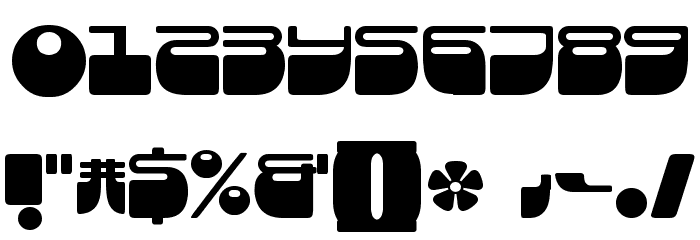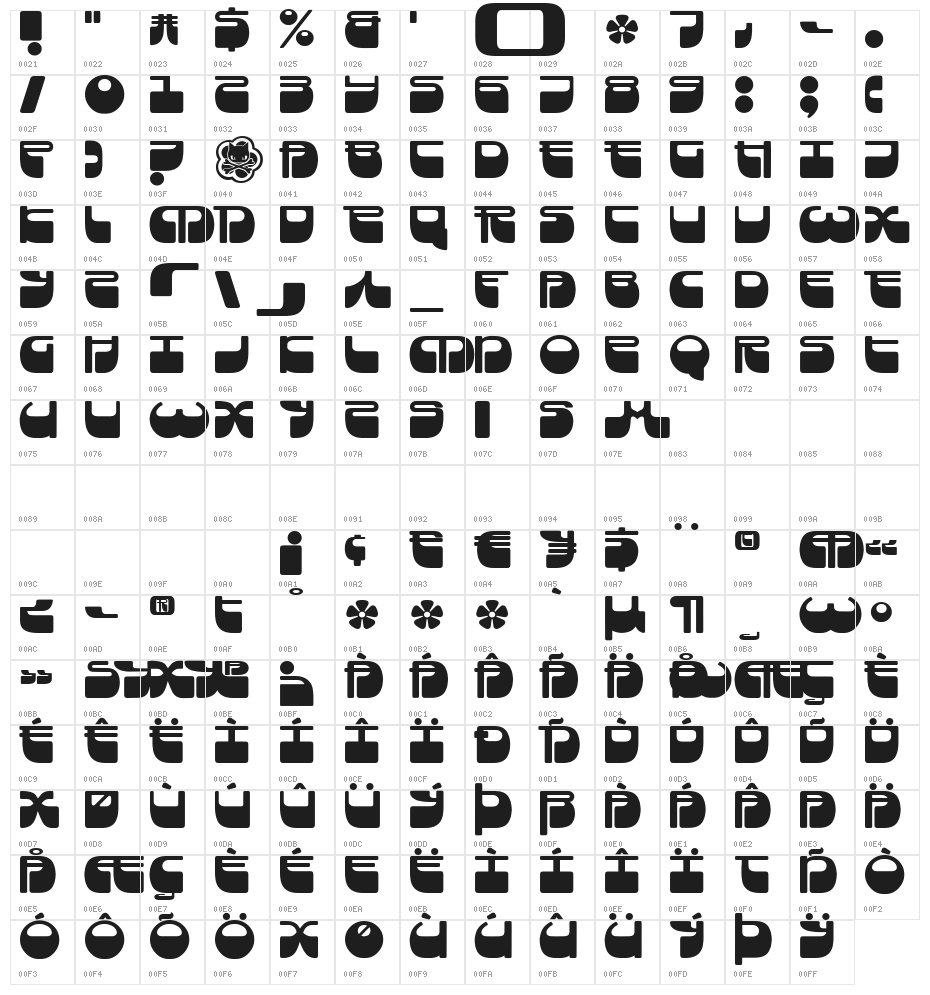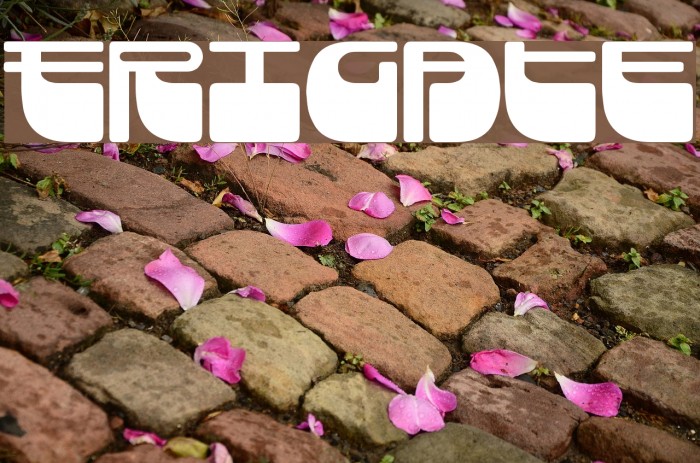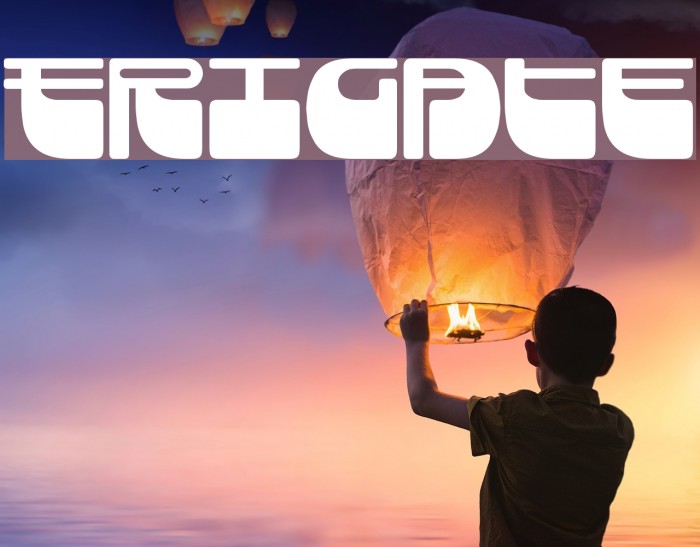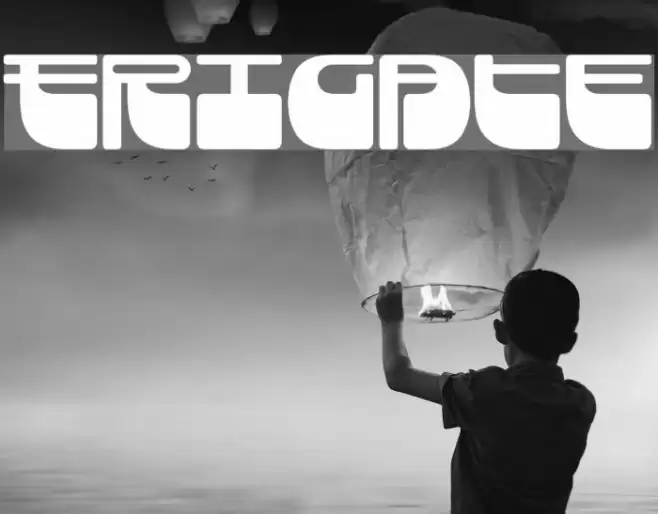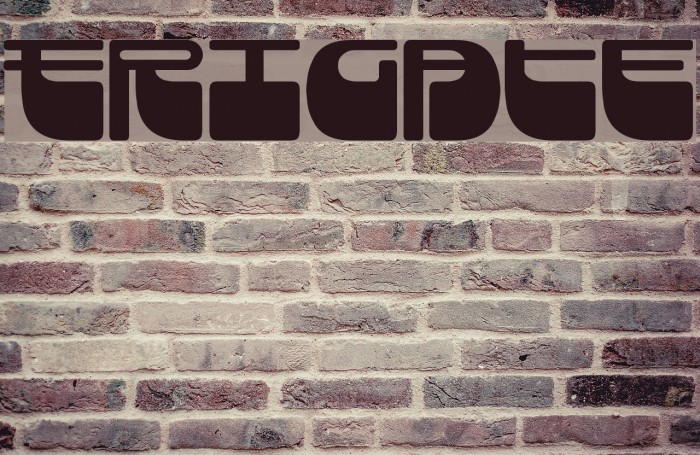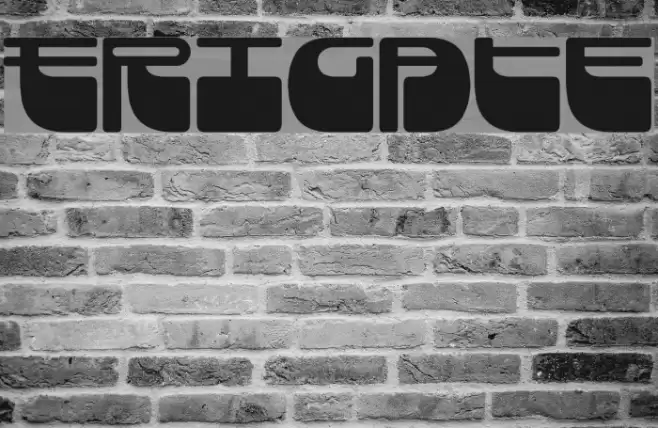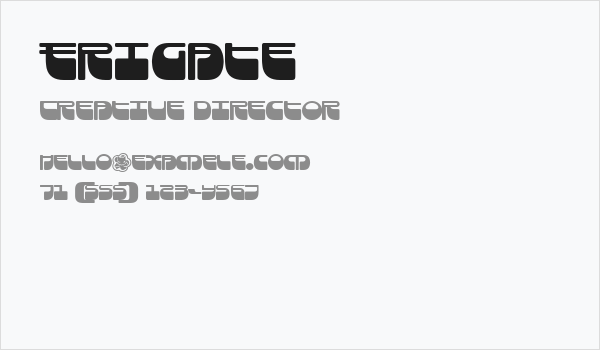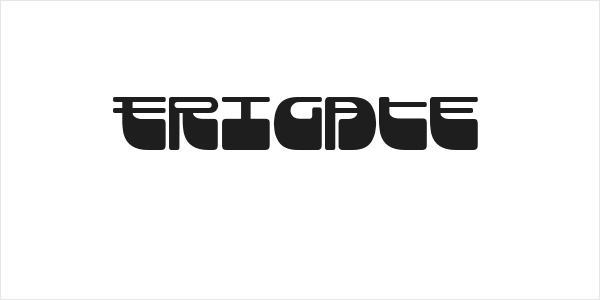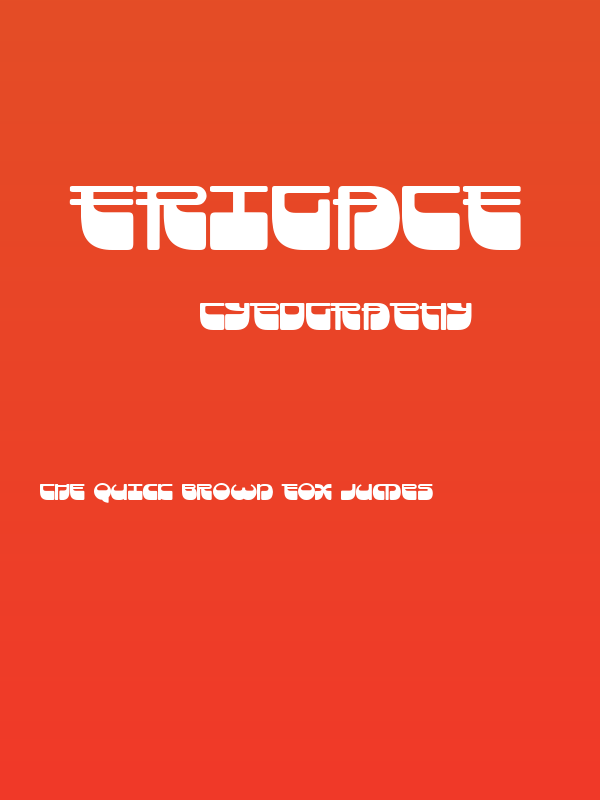
Frigate Font
Frigate Description
This font features a bold and futuristic design with a unique geometric style. The characters are constructed with thick, rounded shapes and a consistent width, giving it a strong and impactful appearance. The uppercase and lowercase letters maintain a uniformity that enhances readability while still offering a distinct visual appeal. Numbers and special characters are designed to match the boldness and geometric nature of the alphabet, making them stand out. The overall style is modern and eye-catching, suitable for projects that require a strong visual presence.